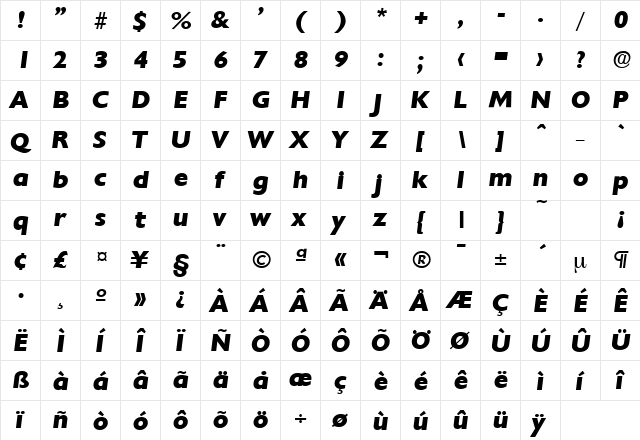
Chantilly-Serial-ExtraBold RegularItalic Font Preview
Design Context for Chantilly-Serial-ExtraBold Typeface
Chantilly-Serial-ExtraBold offers clean, dependable letterforms without strong stylistic allegiance, making it a practical choice for designers who need flexibility. The slanted form adds forward momentum and visual energy. The heavy weight commands attention and anchors typographic hierarchies.
Pro Tip: Try Chantilly-Serial-ExtraBold for annotation and caption copy alongside an upright companion — the contrast in angle creates a dynamic but ordered typographic system.